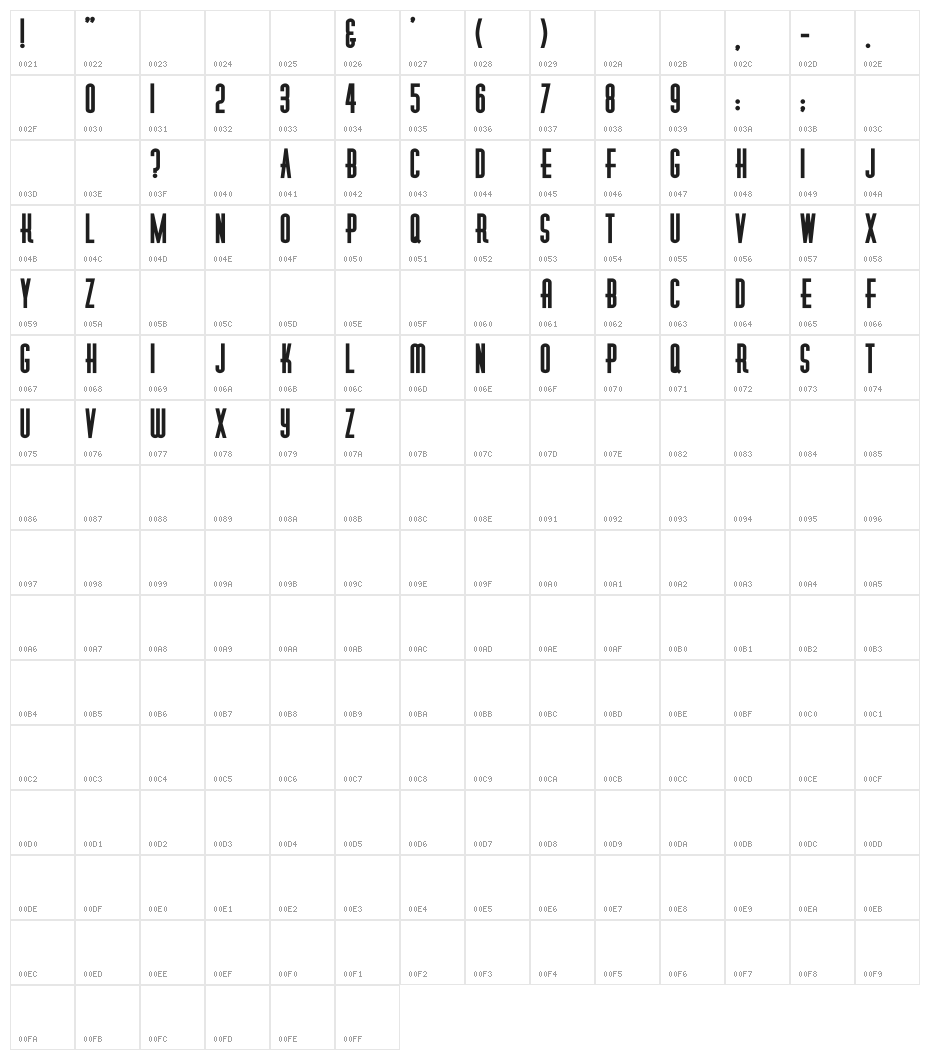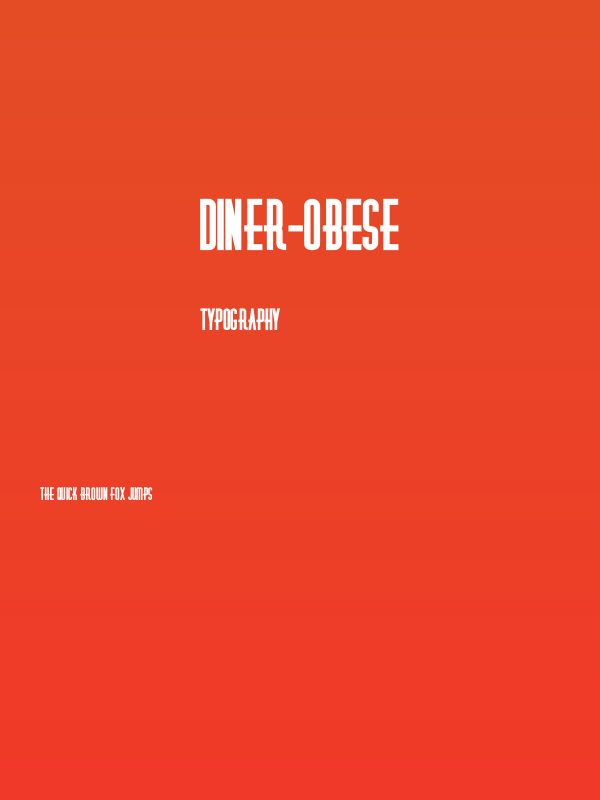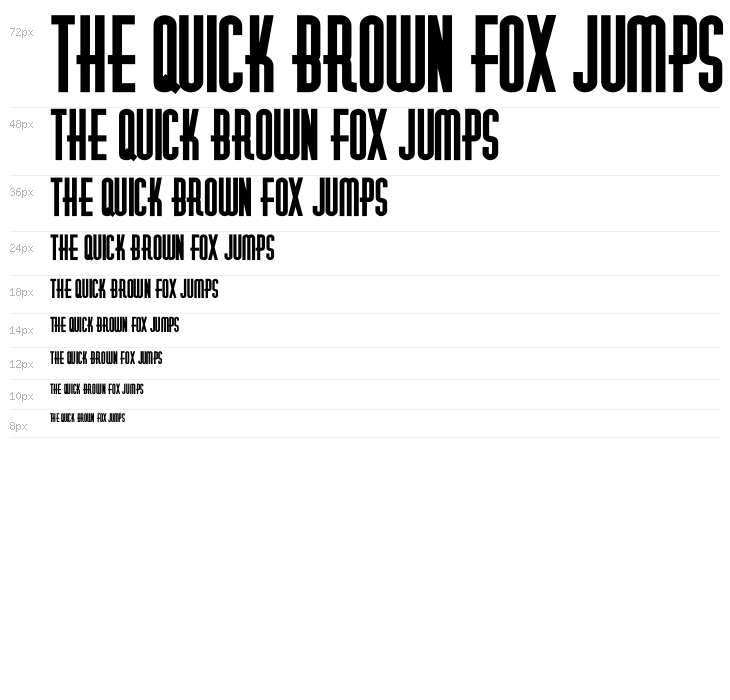
Diner-Obese Font
Diner-Obese Description
This bold and striking font features tall, condensed letterforms with a strong vertical emphasis. The characters are uniformly thick, creating a powerful visual impact. The uppercase letters are particularly elongated, giving the font a commanding presence. The numbers and special characters maintain this robust style, ensuring consistency across all glyphs. This font's design is reminiscent of vintage signage, yet it maintains a modern edge with its clean lines and minimalistic approach.
| Overall Style | Vintage, Modern |
| Use Case | Headlines, Logos, Signage |
| Proposed Projects | Ideal for branding projects, poster designs, and signage that require a bold statement. It can also be used in editorial layouts where a strong headline is needed. |